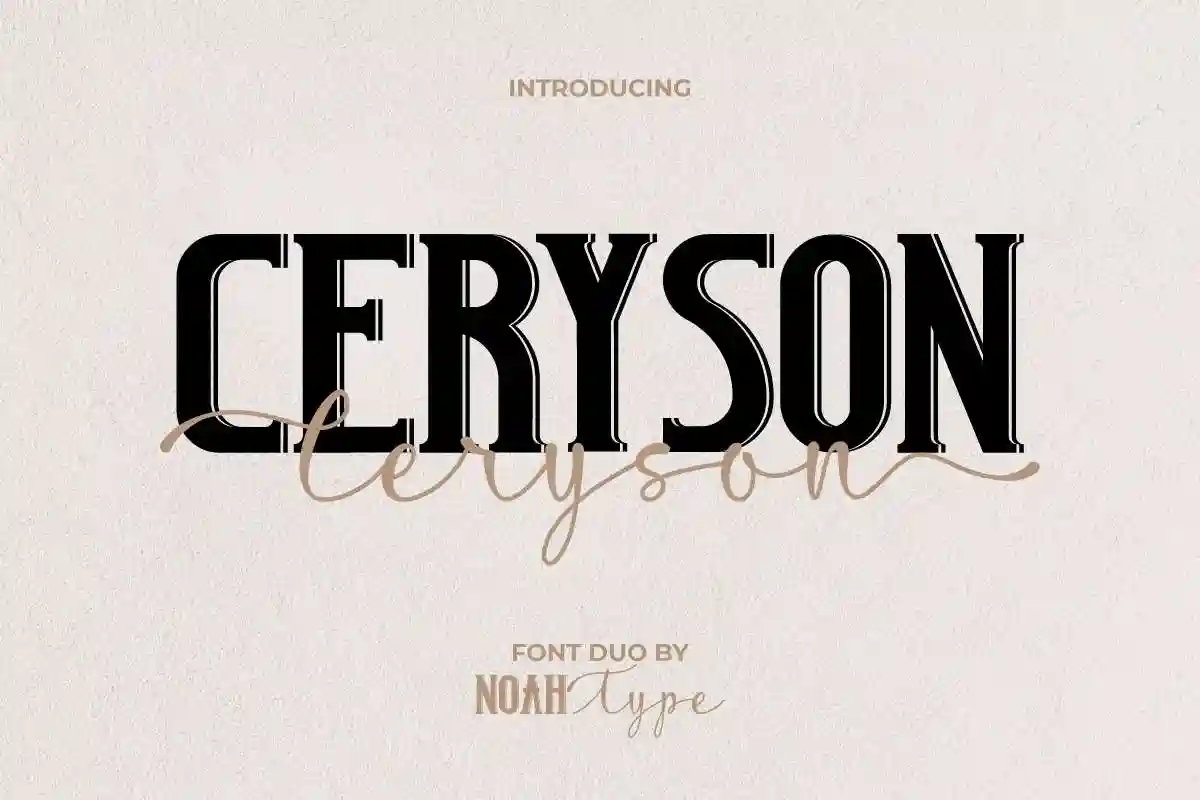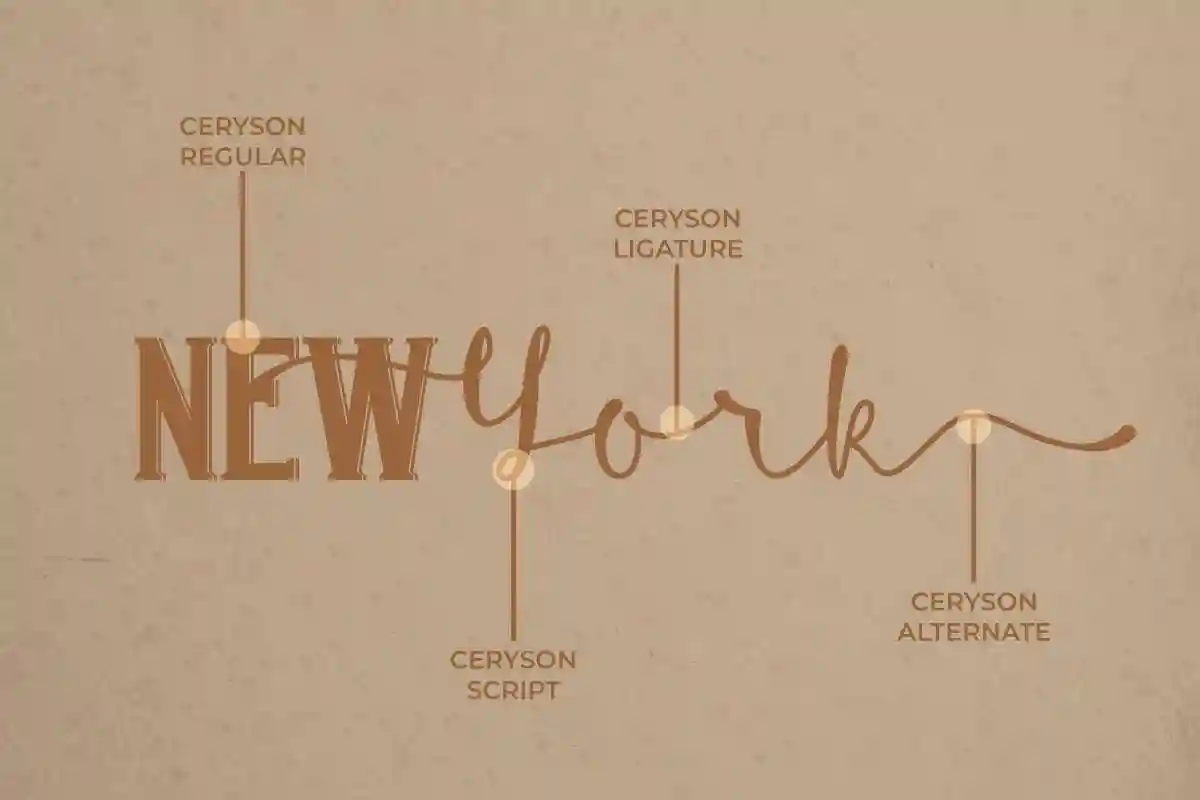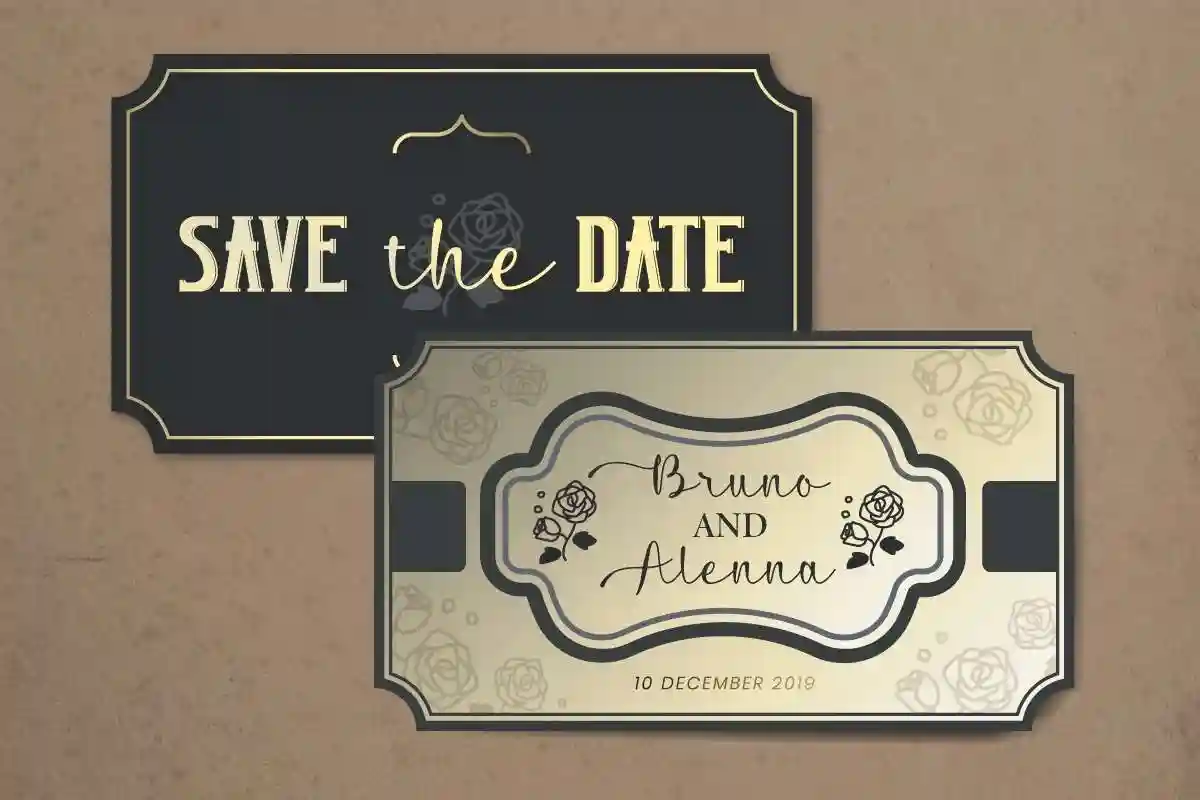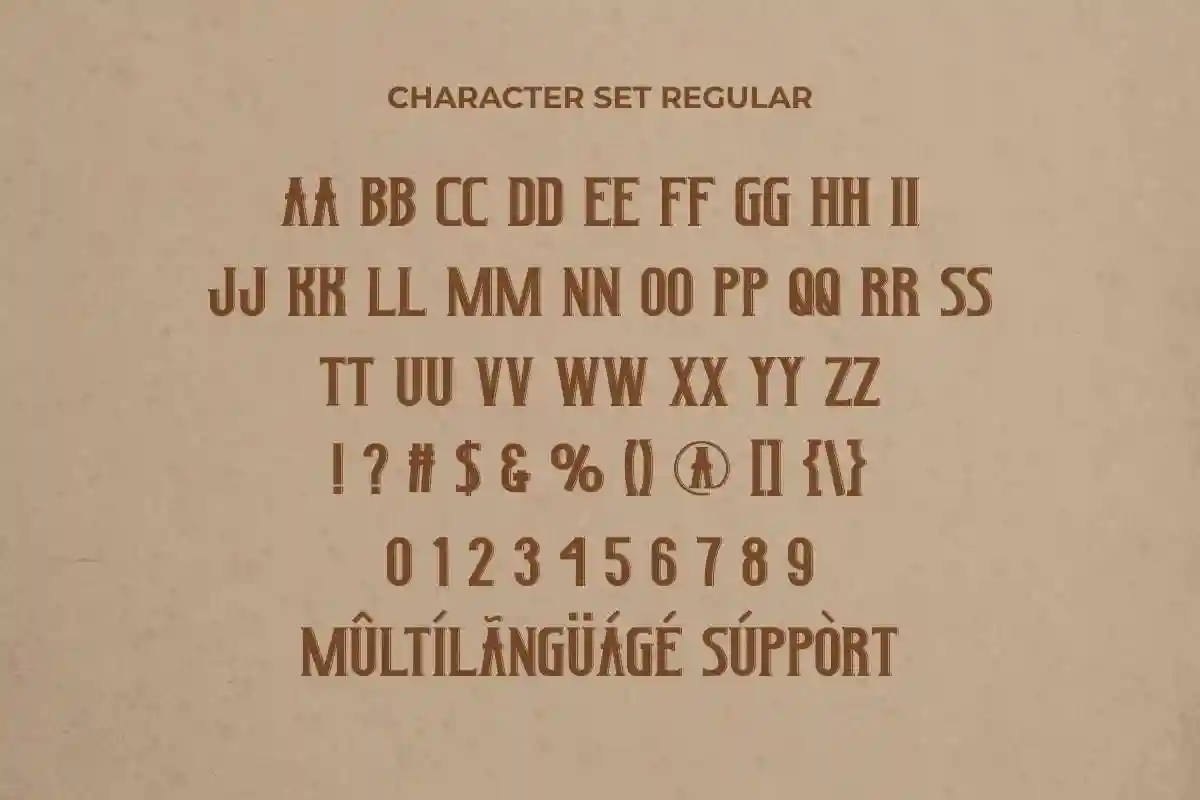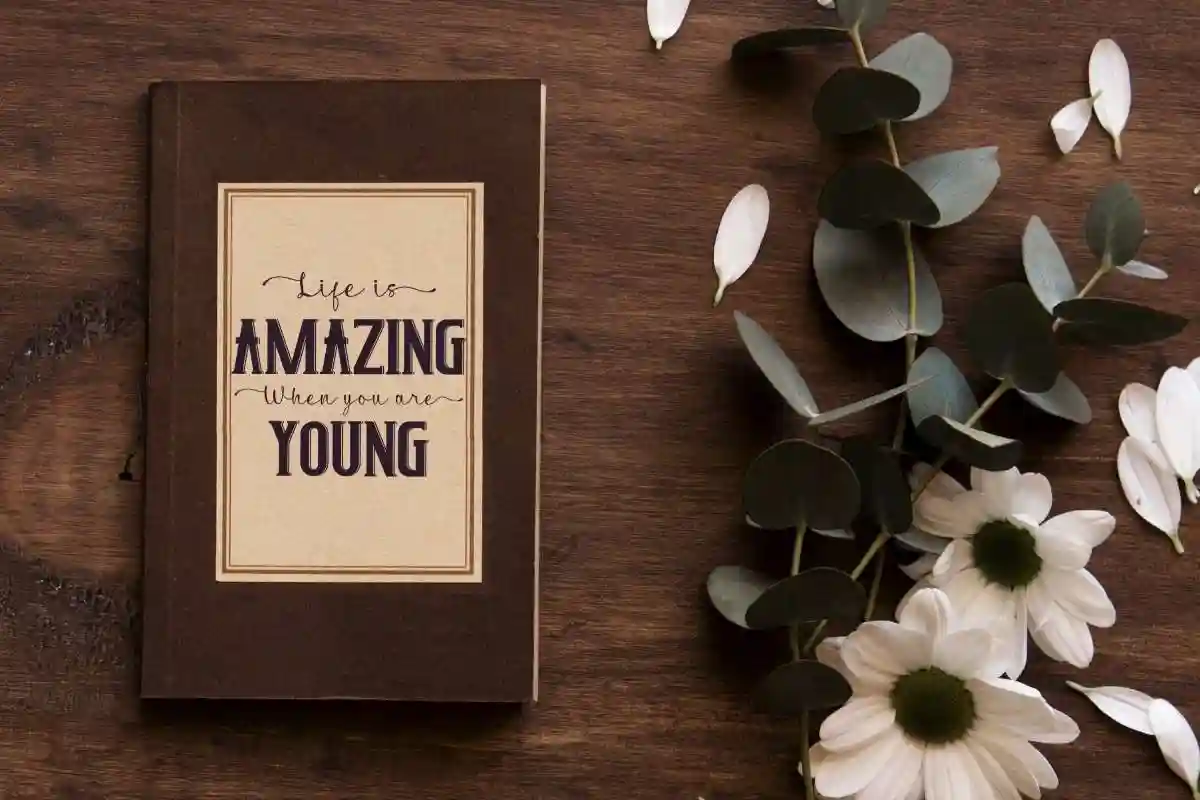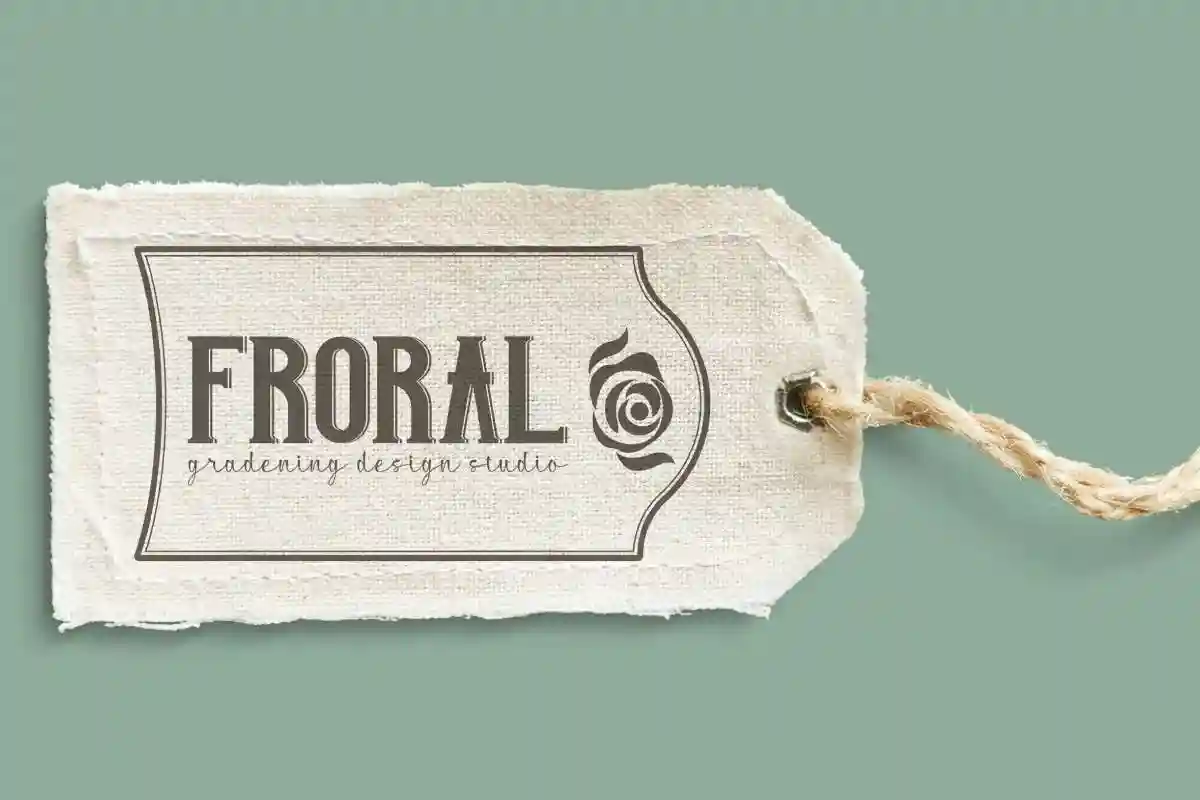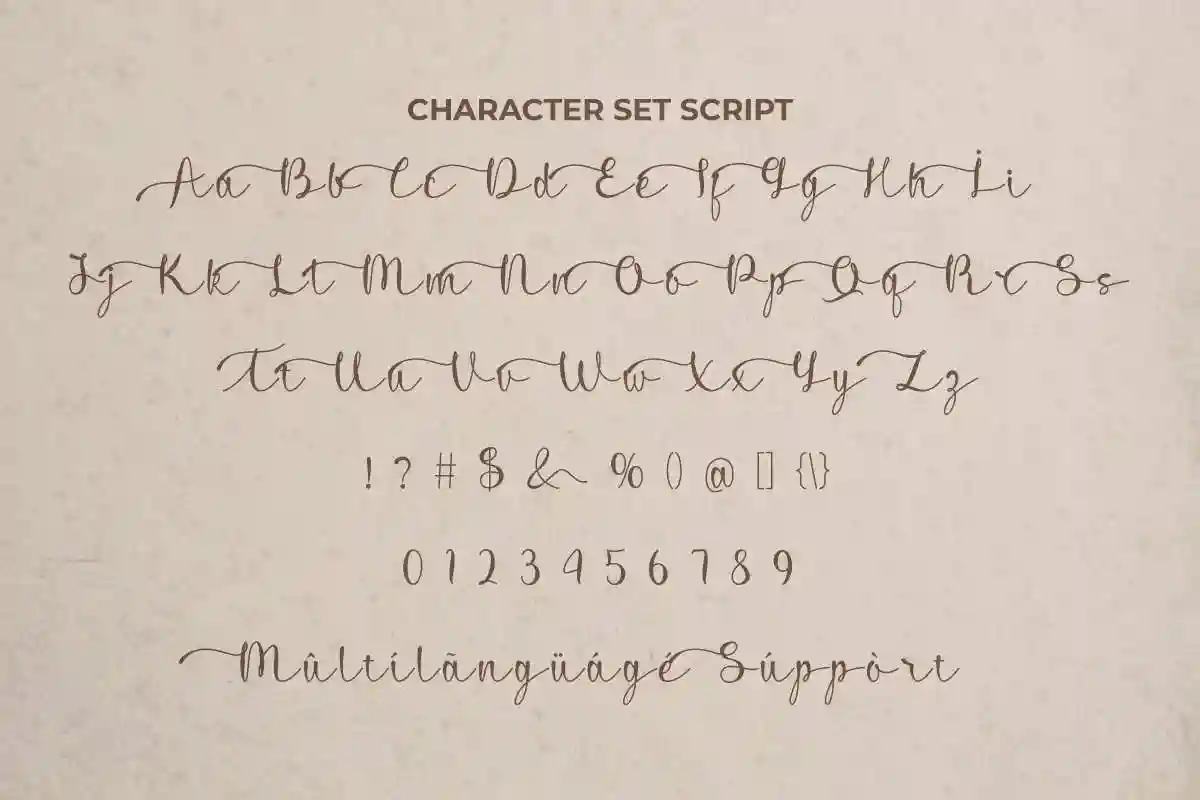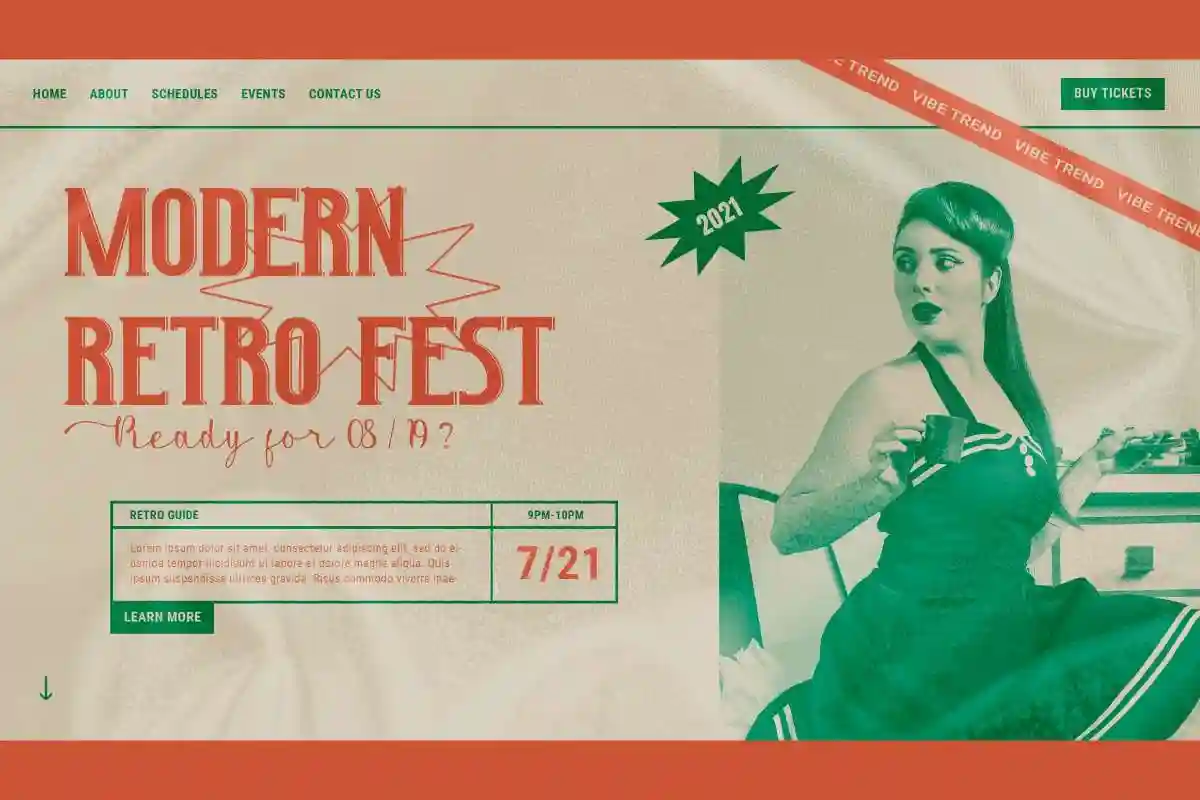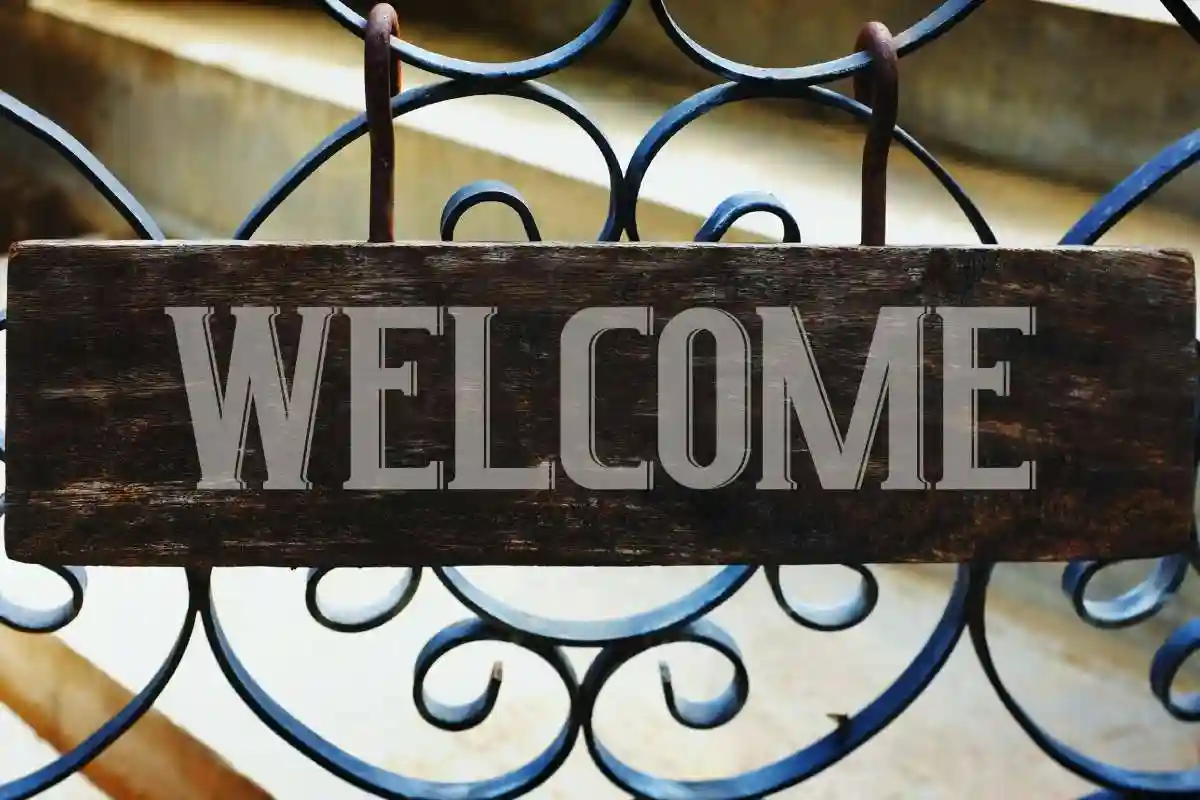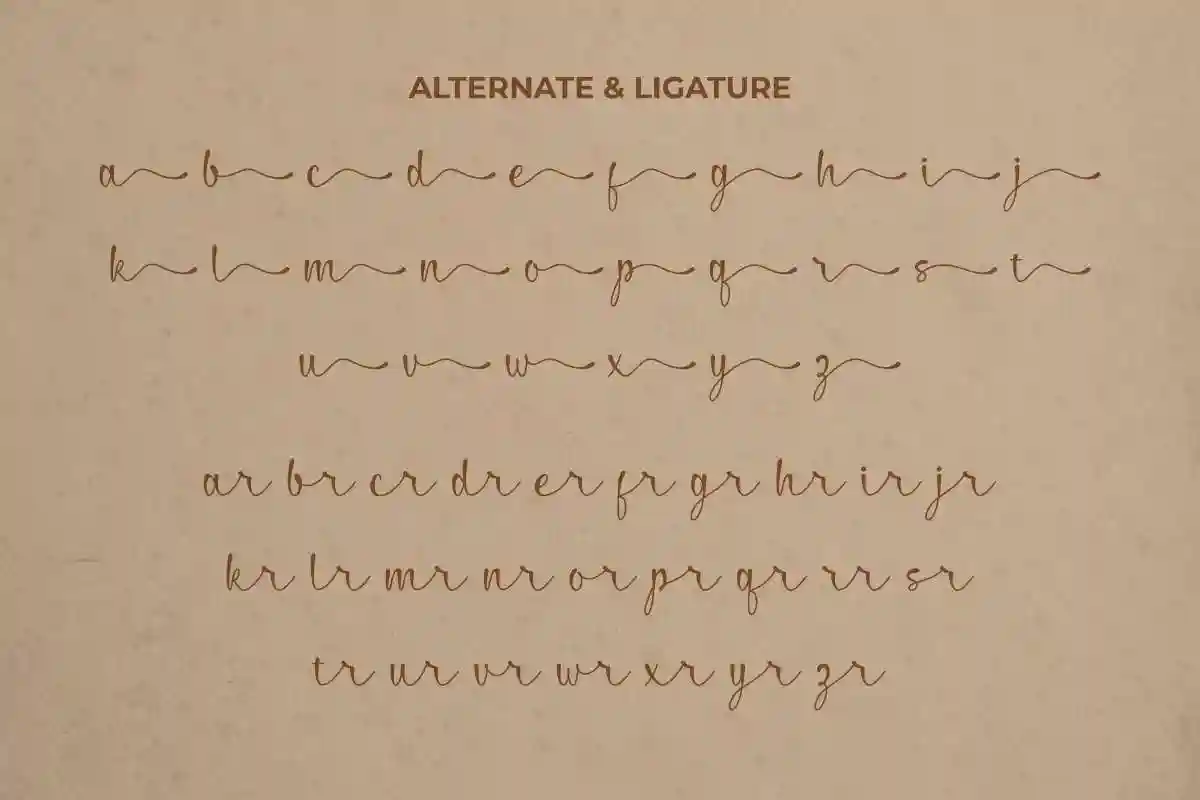
Ceryson Font is a font duo with two different styles blended together. It has a bold retro serif style and a light brush natural handwriting style, this combination of fonts will bring a special effect to the design. This will work for weddings, florists, writers and more. Ceryson Font comes with two style options : Regular and Script. Ceryson Regular includes complete set of ALL CAPS with the same size between Uppercase and Lowercase Basic Characters, Numerals and Punctuation. Then Ceryson Script includes full set of Uppercase and Lowercase Basic Characters, Numerals and Punctuation. Perfect for many projects such as, branding logos, posters, signage, titles, website etc